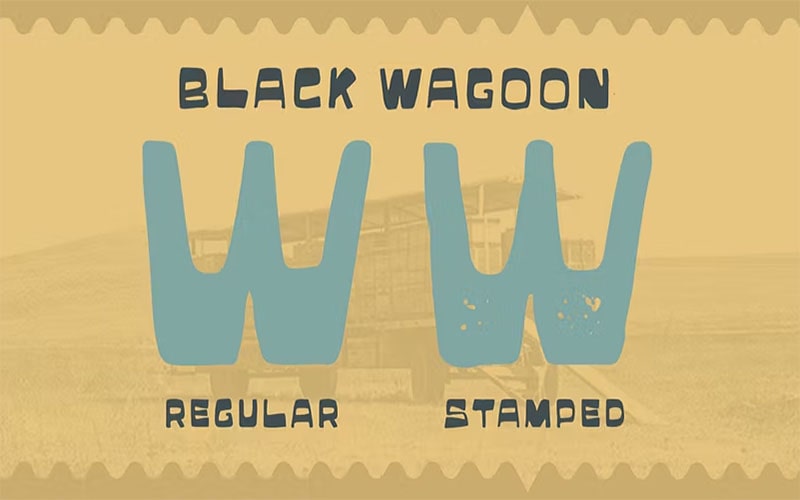
Black Wagoon Font is a distinctive typeface that brings a bold, retro aesthetic to any design project. Known for its strong visual presence and unique style, this font is perfect for creating memorable and eye-catching designs.
This Font was designed by the talented graphic designer Letterhend Studio. Letterhend is renowned for his ability to create fonts that stand out due to their unique and innovative designs.
His typefaces often blend retro influences with modern design principles, making them popular choices for designers seeking something distinctive.
It comes in several styles such as Black Wagoon regular, Black Wagoon italic, and Black Wagoon bold that enhance its versatility. These styles make Black Wagoon suitable for a variety of uses.
Black Wagoon Font
The standard style is characterized by its bold and retro-inspired letterforms, suitable for most applications. A thicker version that is ideal for headlines and titles needing extra visual impact.
Looks great on t-shirts, hats, and other products, adding a unique and eye-catching element. Enhances the visual appeal of product packaging, making it stand out on the shelves.
Features a bold and playful design with thick strokes, offering a fun and eye-catching look comparable to Black Wagoon such as Spongebob Font designed by Santa Gravita and So Random Font made by Disneychannellover.
Let your creativity shine with a typeface that captures attention and adds character to your work. You can achieve a striking and memorable look that resonates with audiences and makes a lasting impression with this font.